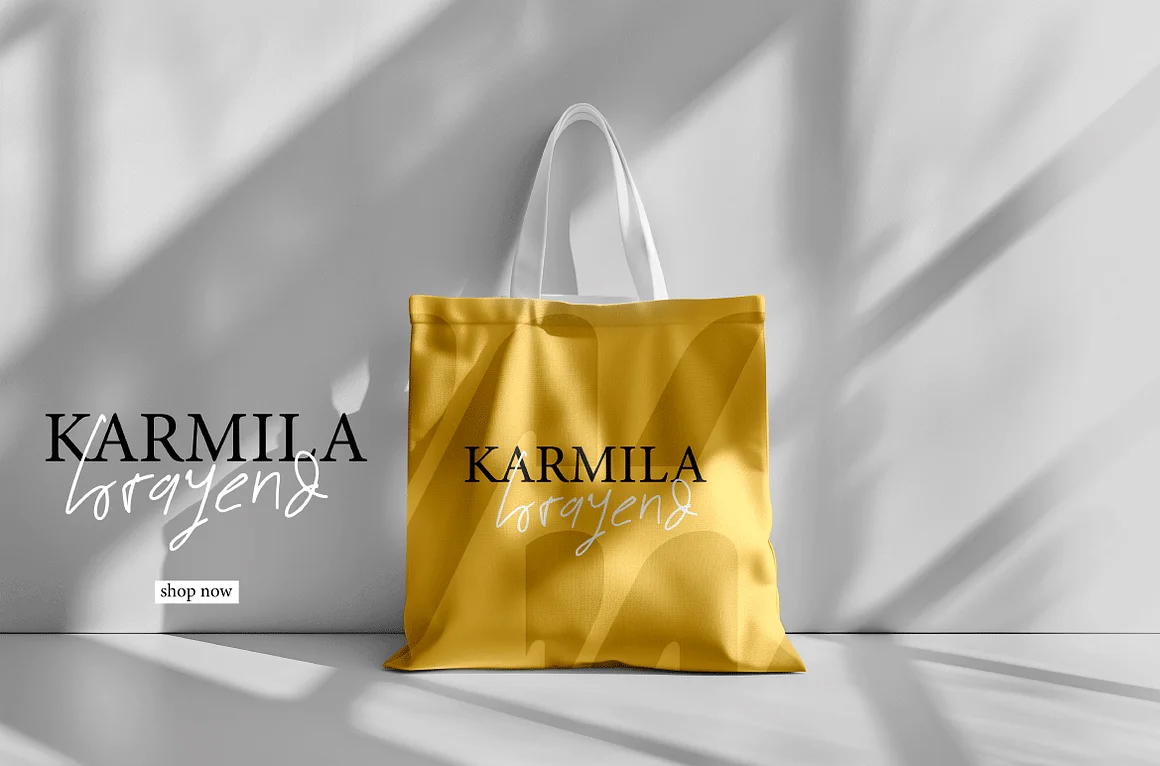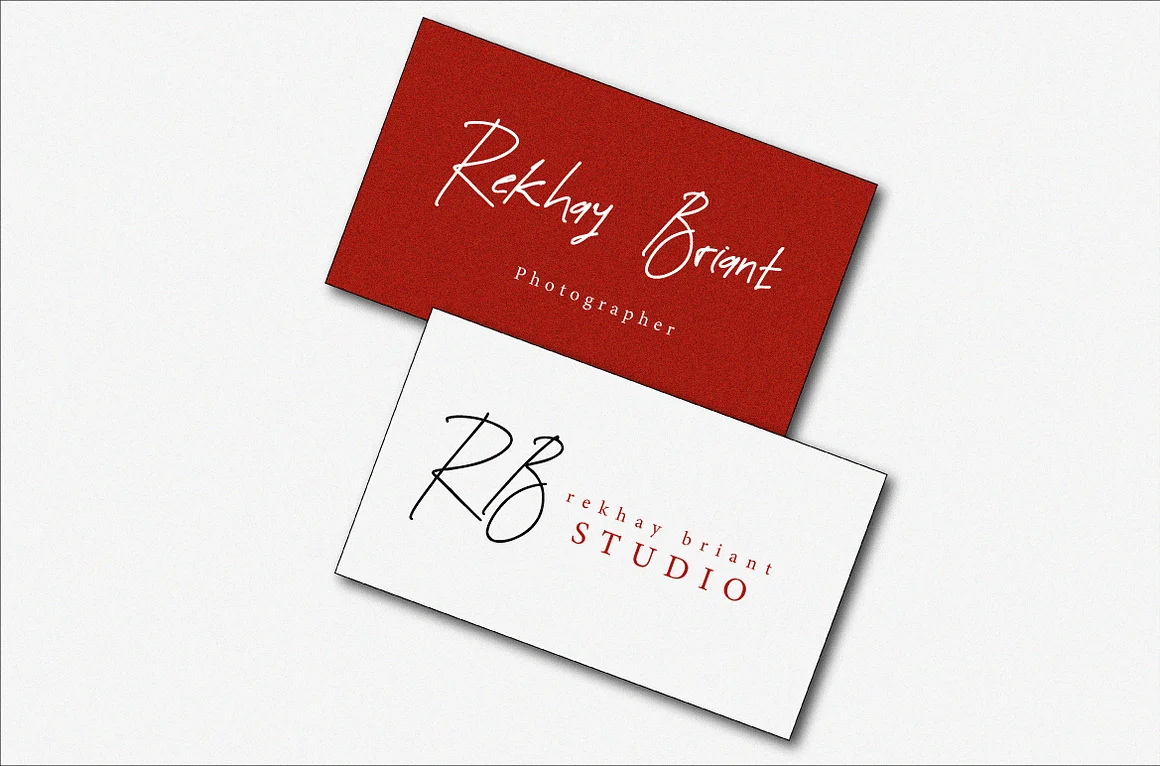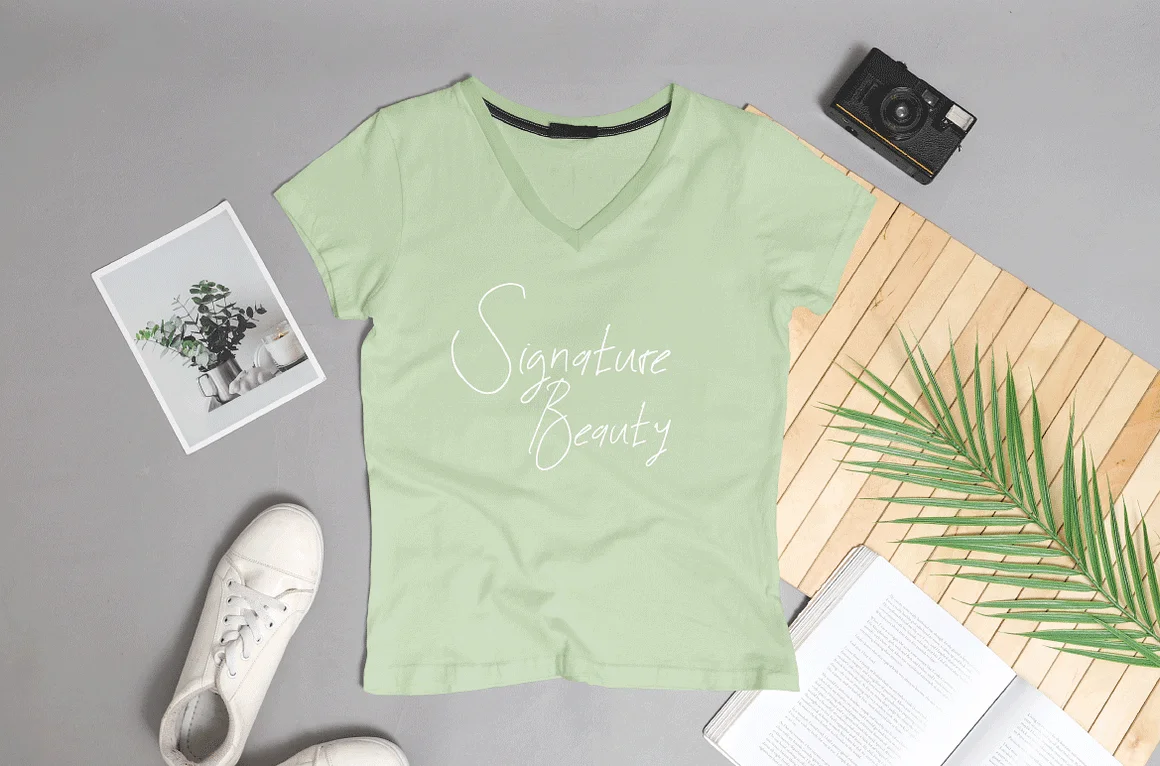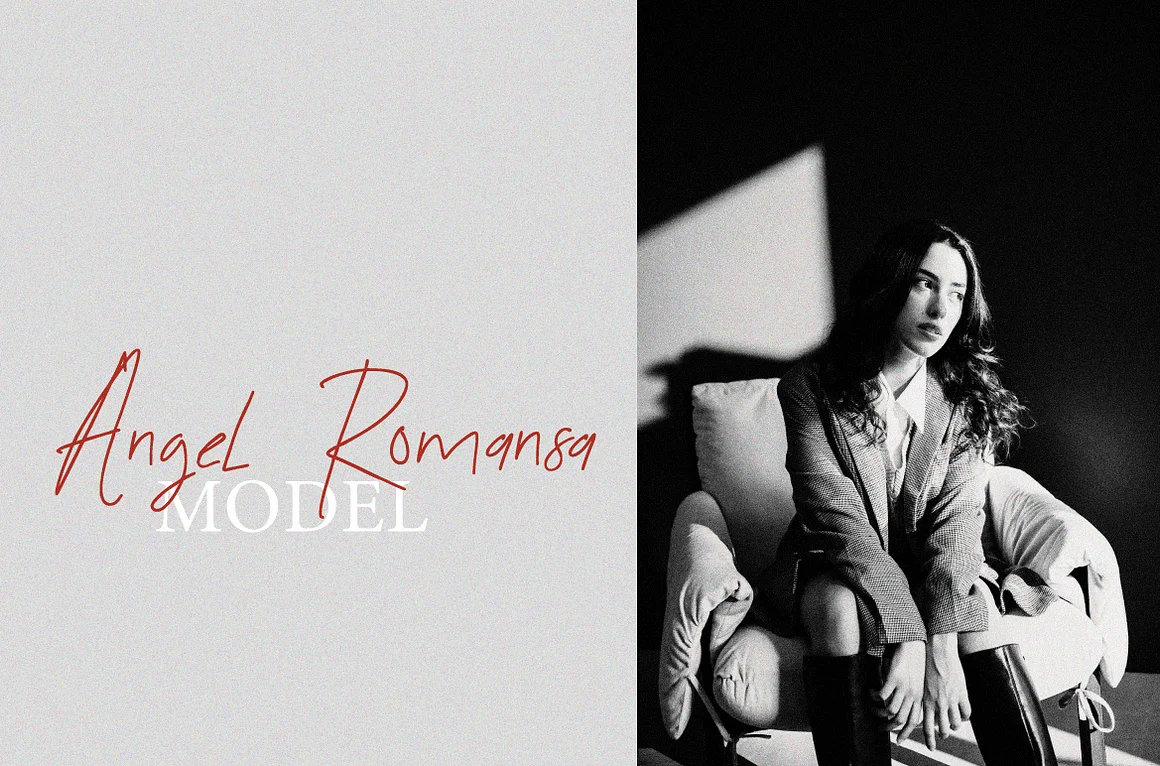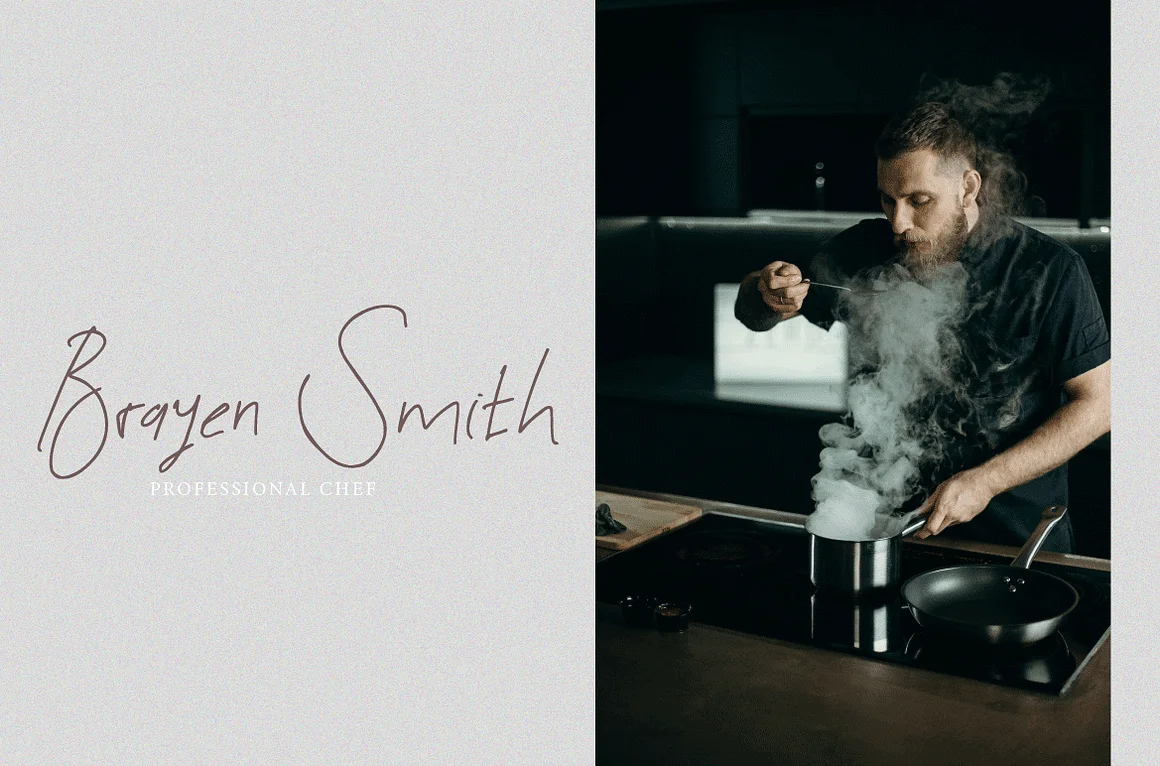
Flower Unsafe Signature Font
The Flower Unsafe Signature Font excels in edgy design applications including rebellious brand identities, unconventional business logos, alternative wedding invitations, edgy product packaging, rebellious business cards, artistic portfolios, bold greeting cards, provocative social media graphics, underground event signage, and daring marketing materials. Its rebellious script style makes it perfect for projects requiring dangerous elegance that communicates rebellion and establishes provocative brand positioning with audiences seeking unconventional experiences and edgy sophistication.
What makes the Flower Unsafe Signature Font truly exciting is its exceptional ability to combine delicate floral beauty with dangerous edge through daringly crafted letterforms. The font features flowing, rebellious strokes with provocative flourishes and unconventional proportions that create a distinctly dangerous appearance. Each character displays masterful attention to edgy detail with rebellious curves, provocative connections, and dangerous spacing that give text a daring, hand-lettered quality. The font's rebellious character and dangerous rhythm create an atmosphere of rebellion while maintaining elegant sophistication and provocative appeal.
The Flower Unsafe Signature Font family typically includes regular weight with extensive character coverage, featuring uppercase and lowercase letters, numerals, punctuation marks, and international characters. The typeface often incorporates stylistic alternates, contextual ligatures, and rebellious swashes that enhance its signature danger. These additional elements provide designers with creative flexibility to customize text appearance and achieve more natural-looking provocative handwriting that reflects the font's dangerous and unconventional character.
This provocative signature font distinguishes itself through its remarkable balance of beauty and rebellion. Unlike safe or conventional fonts that lack edge, Flower Unsafe Signature Font embraces the power of dangerous design to challenge expectations and create memorable connections with audiences. The font's rebellious character makes it essential for alternative brands, underground businesses, and edgy projects where standing out from conventional design and expressing unique personality is fundamental to success in counterculture markets.
The Flower Unsafe Signature Font presents designers with an outstanding opportunity to incorporate rebellious elegance into their unconventional projects. From alternative fashion brands to underground music venues, this font delivers the dangerous signature aesthetic that resonates with audiences who appreciate edgy experiences and provocative sophistication. Its rebellious appeal ensures your designs communicate bold nonconformity while the signature styling adds distinctive personality that reflects dangerous beauty and unconventional excellence in any application requiring provocative typography solutions.